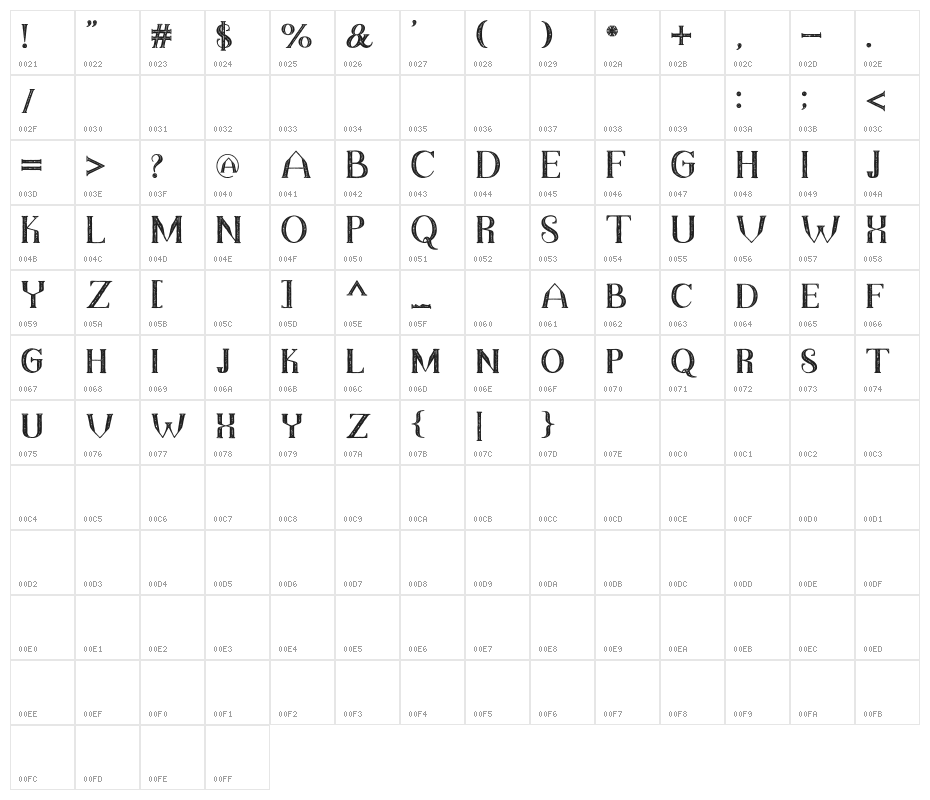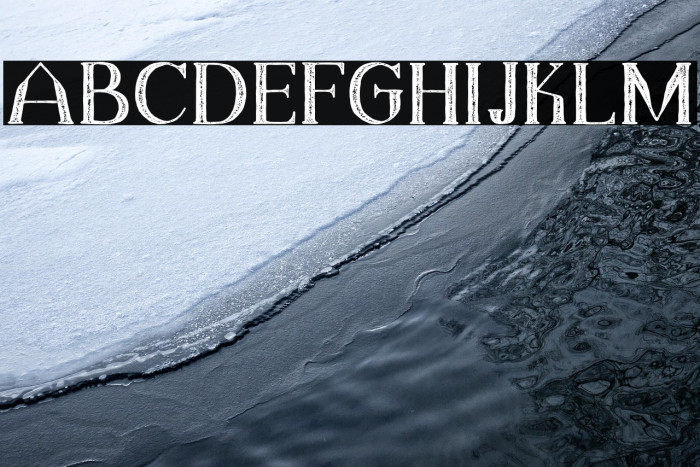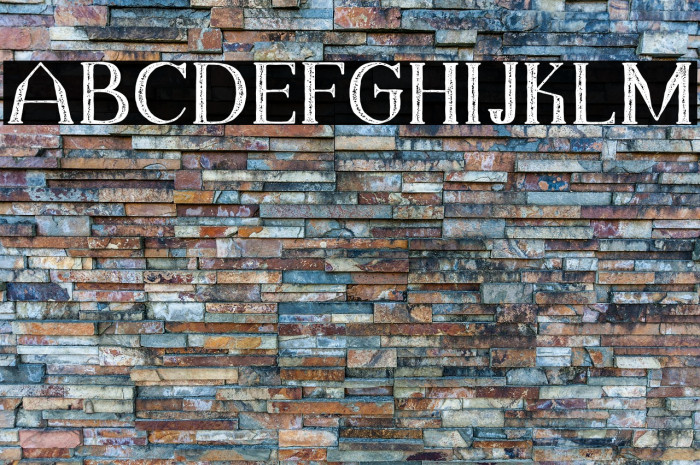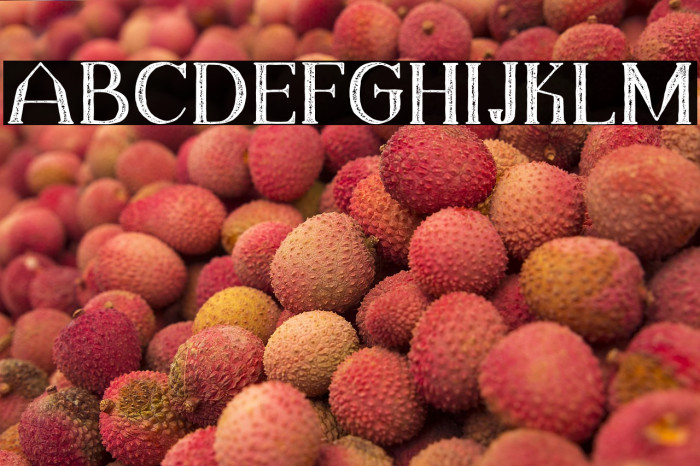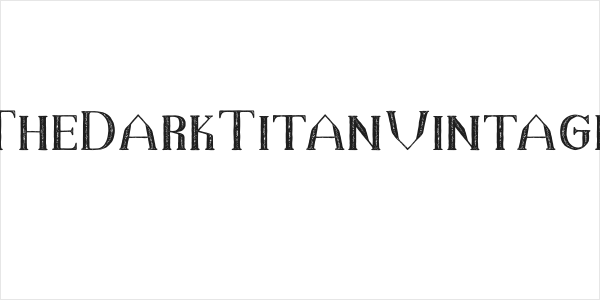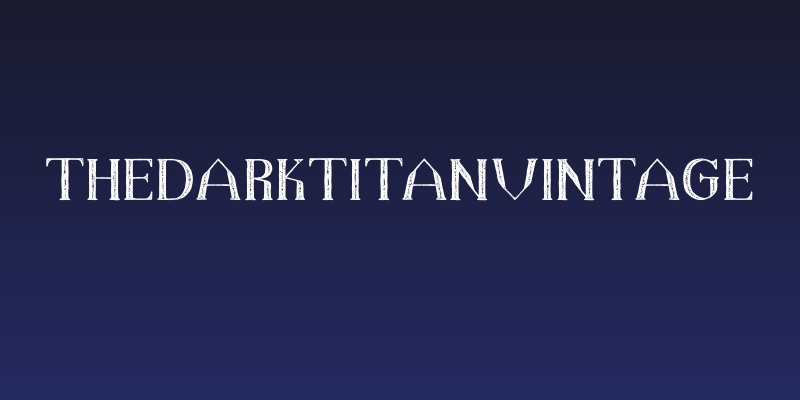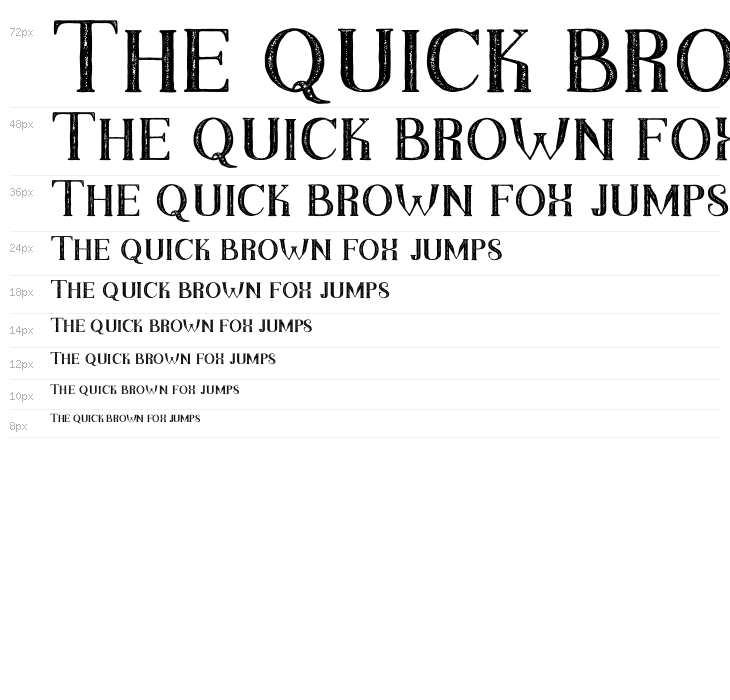
TheDarkTitanVintage Font
TheDarkTitanVintage Description
This font features a bold and decorative style with a vintage flair. The uppercase letters are characterized by their unique, artistic strokes that give a sense of antiquity and elegance. Each letter has a textured appearance, reminiscent of hand-carved wood or stone, adding depth and character. The serifs are prominent and slightly exaggerated, contributing to its classic yet distinctive look. The numbers and special characters maintain the same textured and bold style, ensuring consistency throughout. This font's design is ideal for projects that require a touch of nostalgia and artistic expression.
| Proposed Projects | Ideal for vintage-themed posters, logos, book covers, and branding materials that require a classic yet artistic touch. |